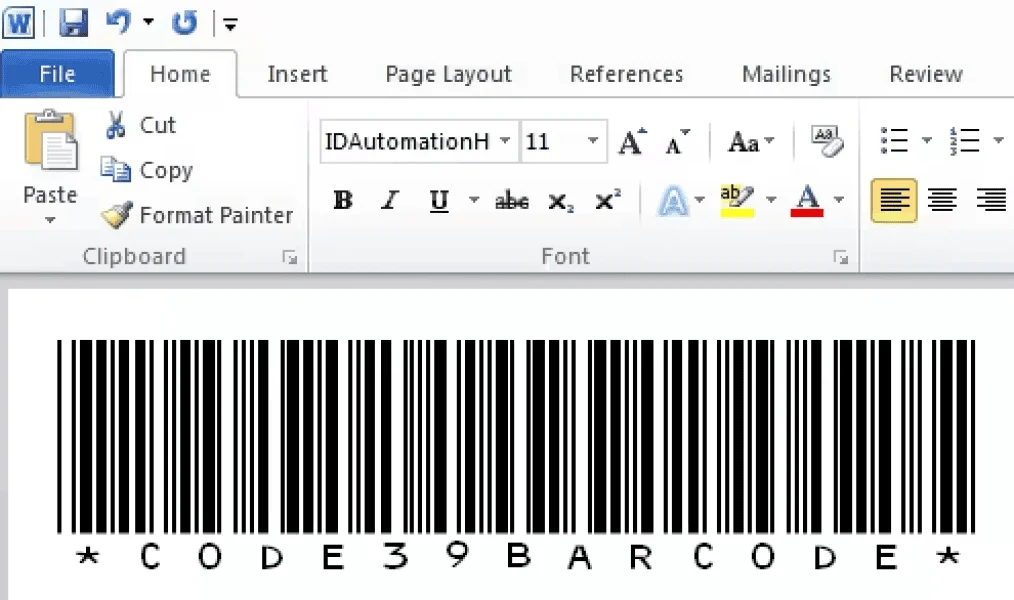
The IDAutomationHC39M font (represented in green below) is the only free size provided. The purchased version contains several other sizes in standard, human-readable, standard extended, and human-readable extended versions. The extended version of the purchased product also supports lowercase characters. The last character in the font name determines the height of the barcode with the shortest being "XS" and the tallest being "XXL".